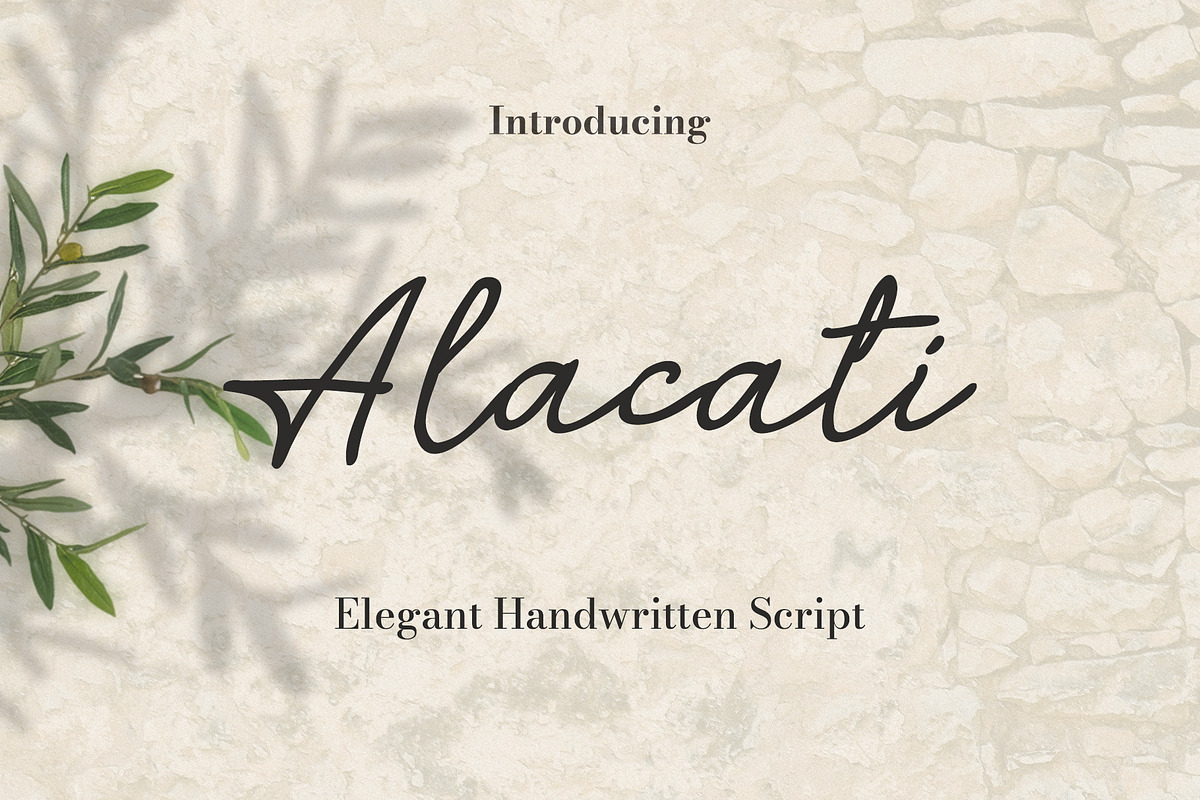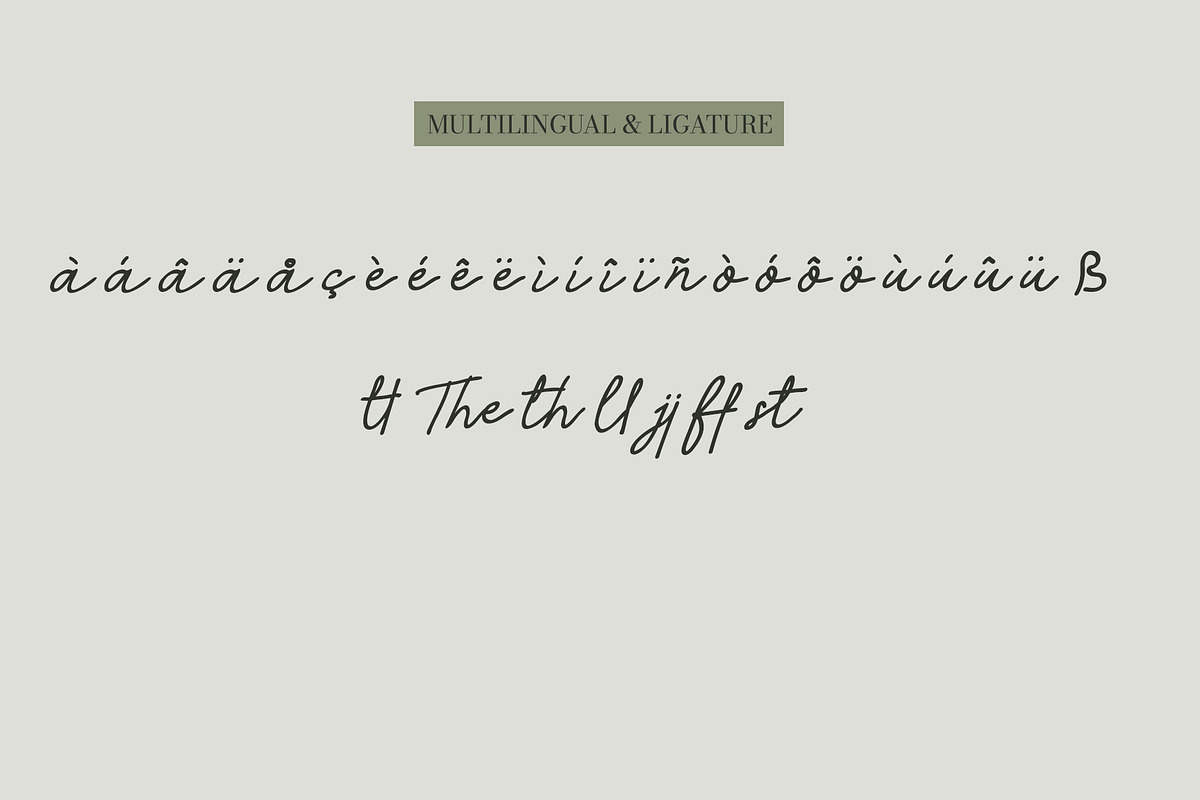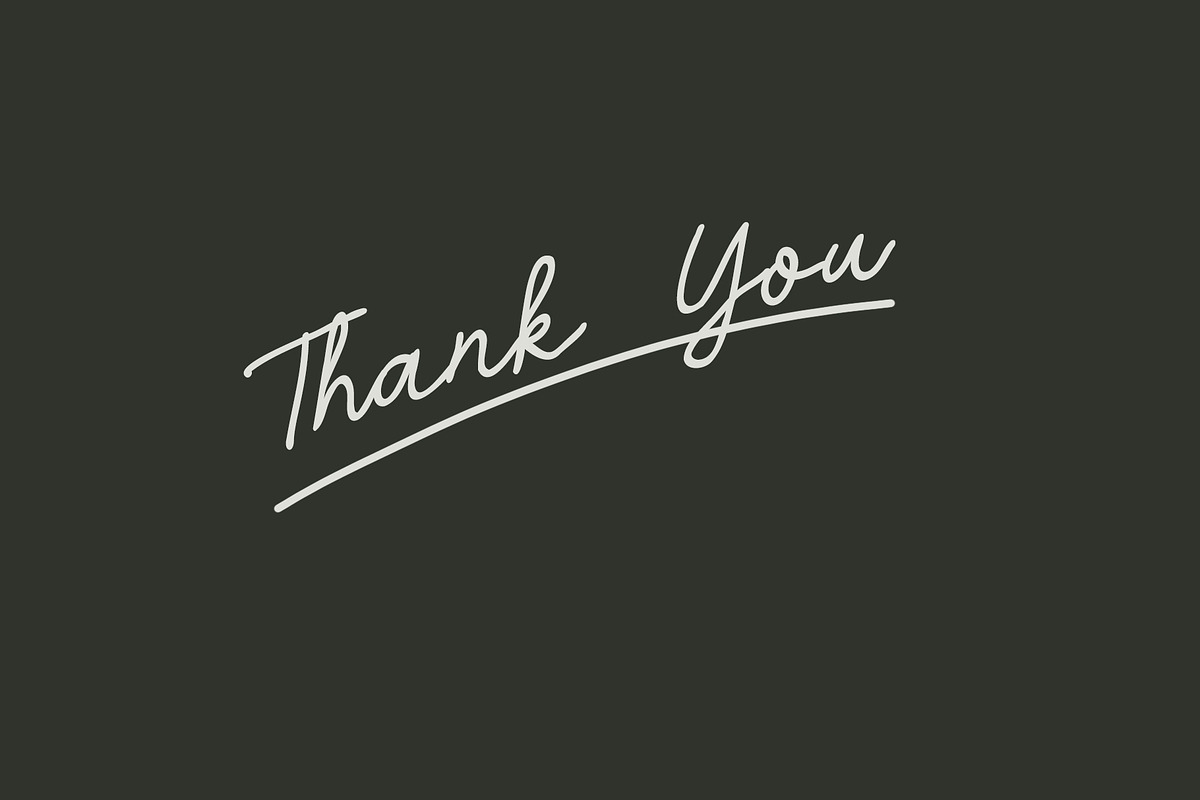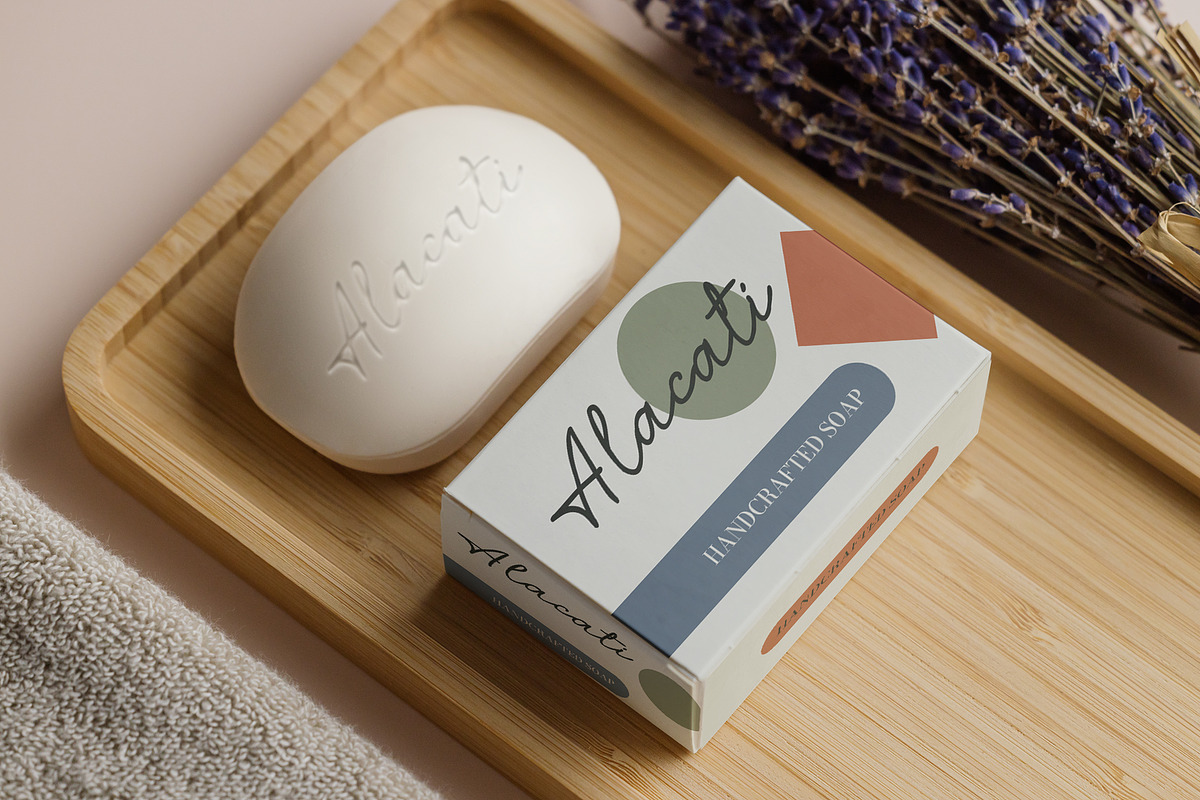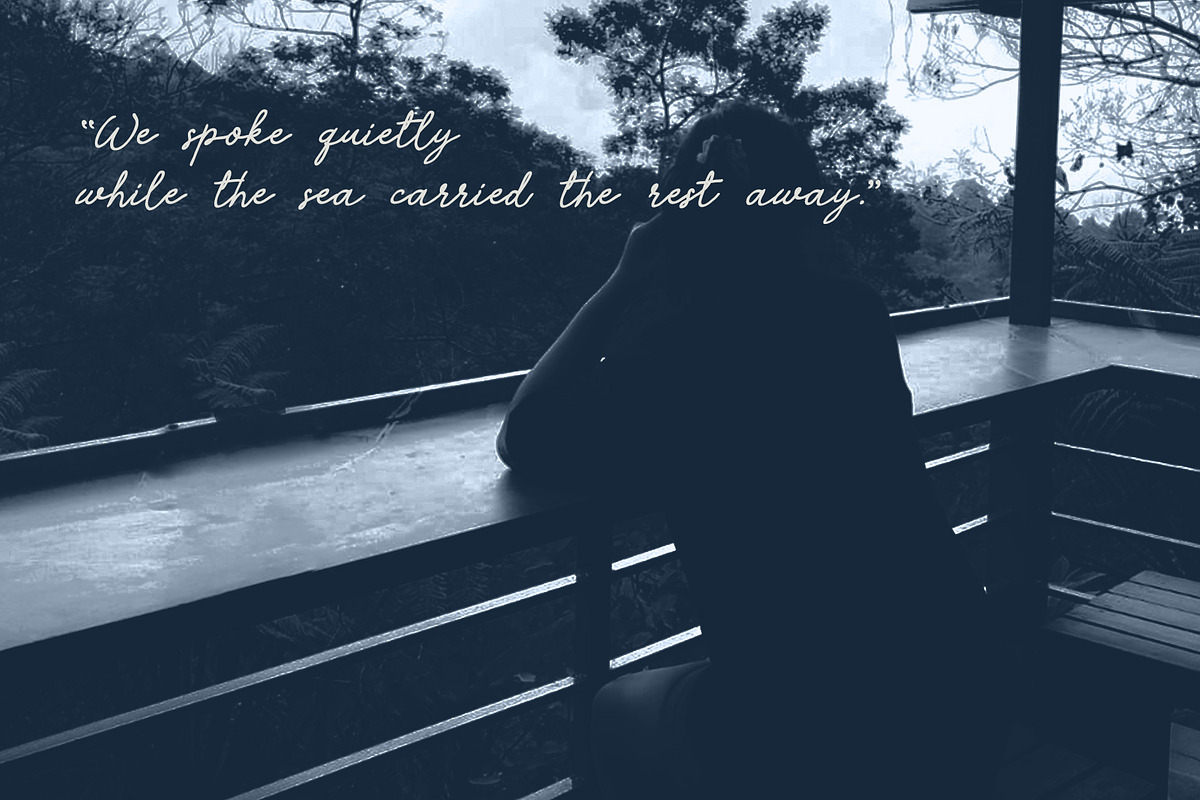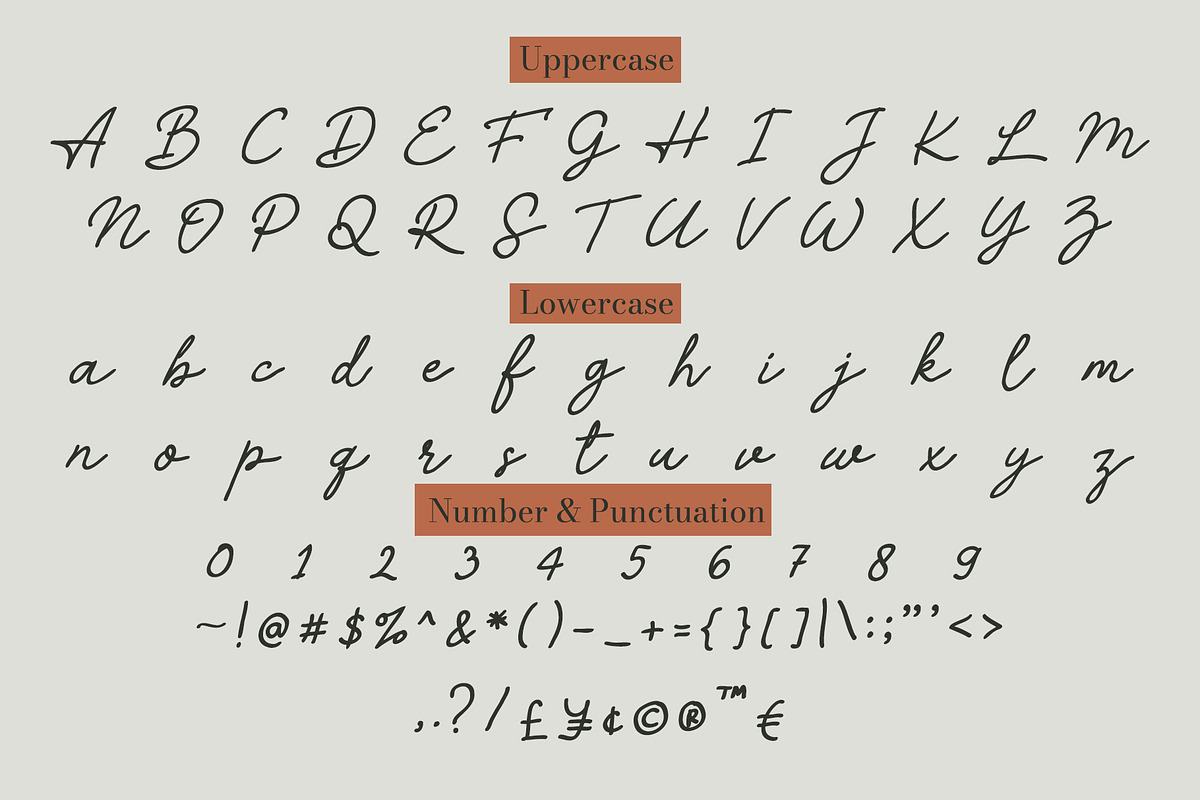
Alacati - Elegant Handwritten Script
Alacati is a poetic handwritten script inspired by Mediterranean nights, coastal breeze, and quiet luxury. Designed with delicate flowing strokes and natural movement, this typeface brings an intimate editorial feel perfect for branding, restaurant menus, packaging, fashion campaigns, wedding stationery, and boutique design projects.
Number & Punctuation
Ligatures & Multilingual